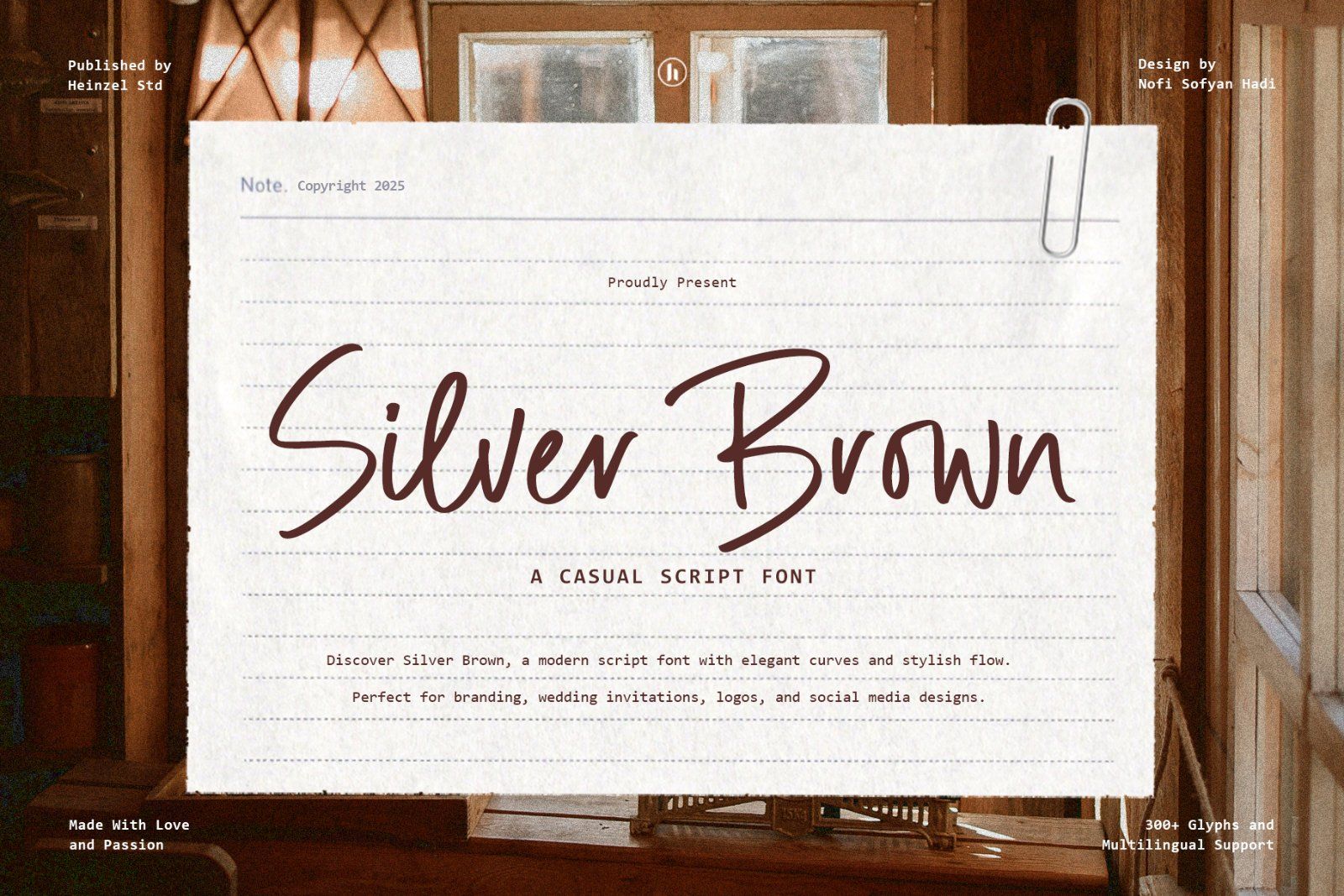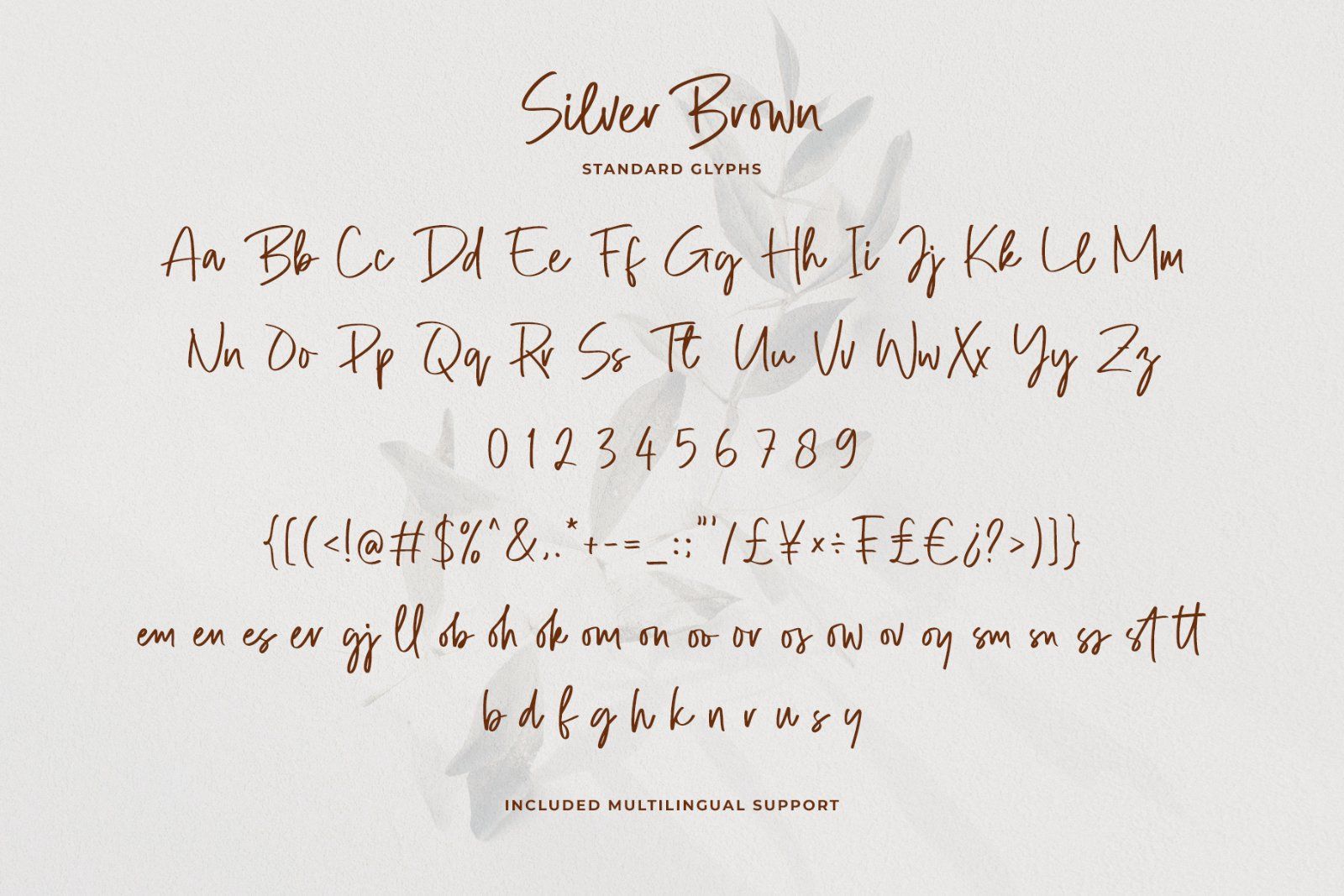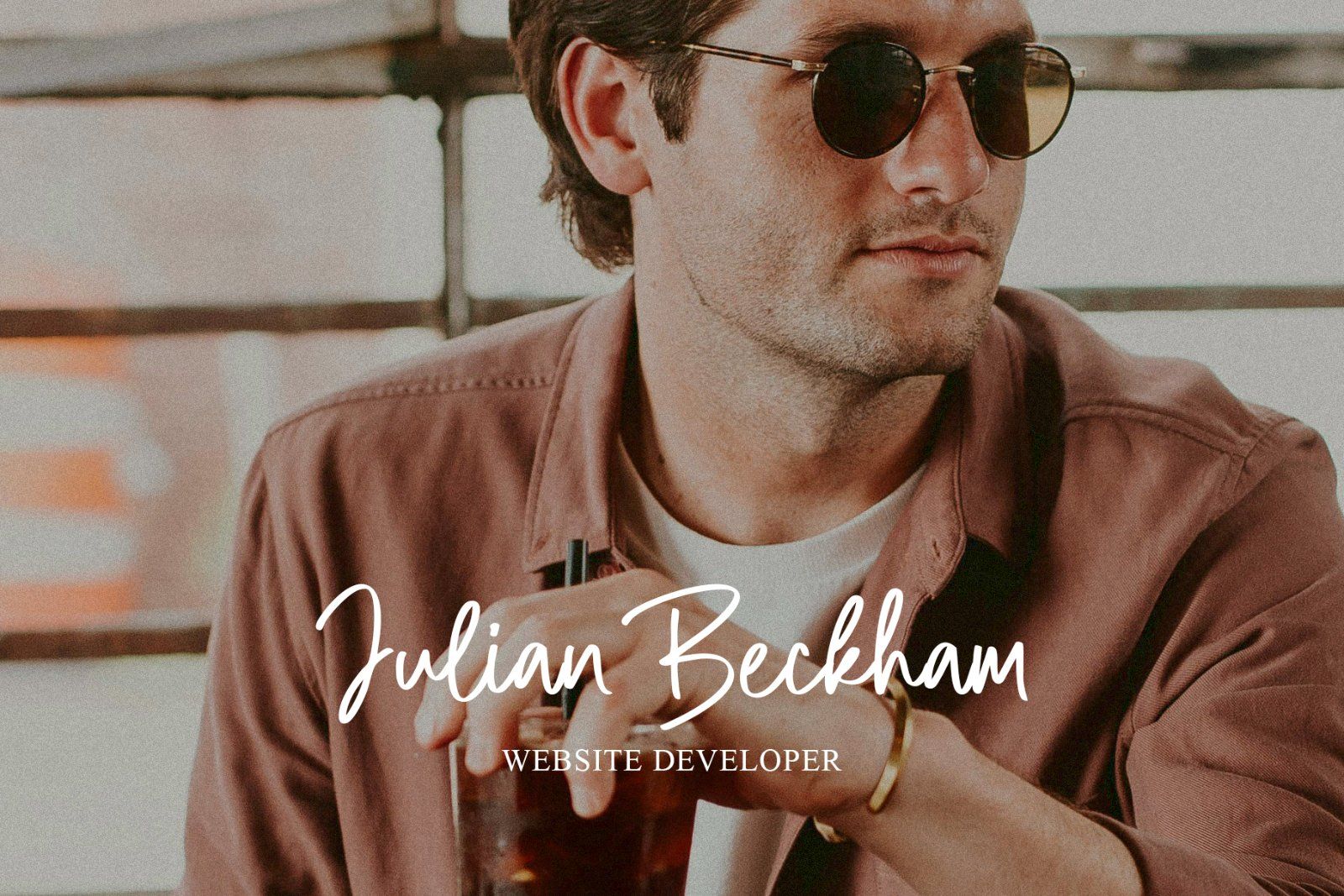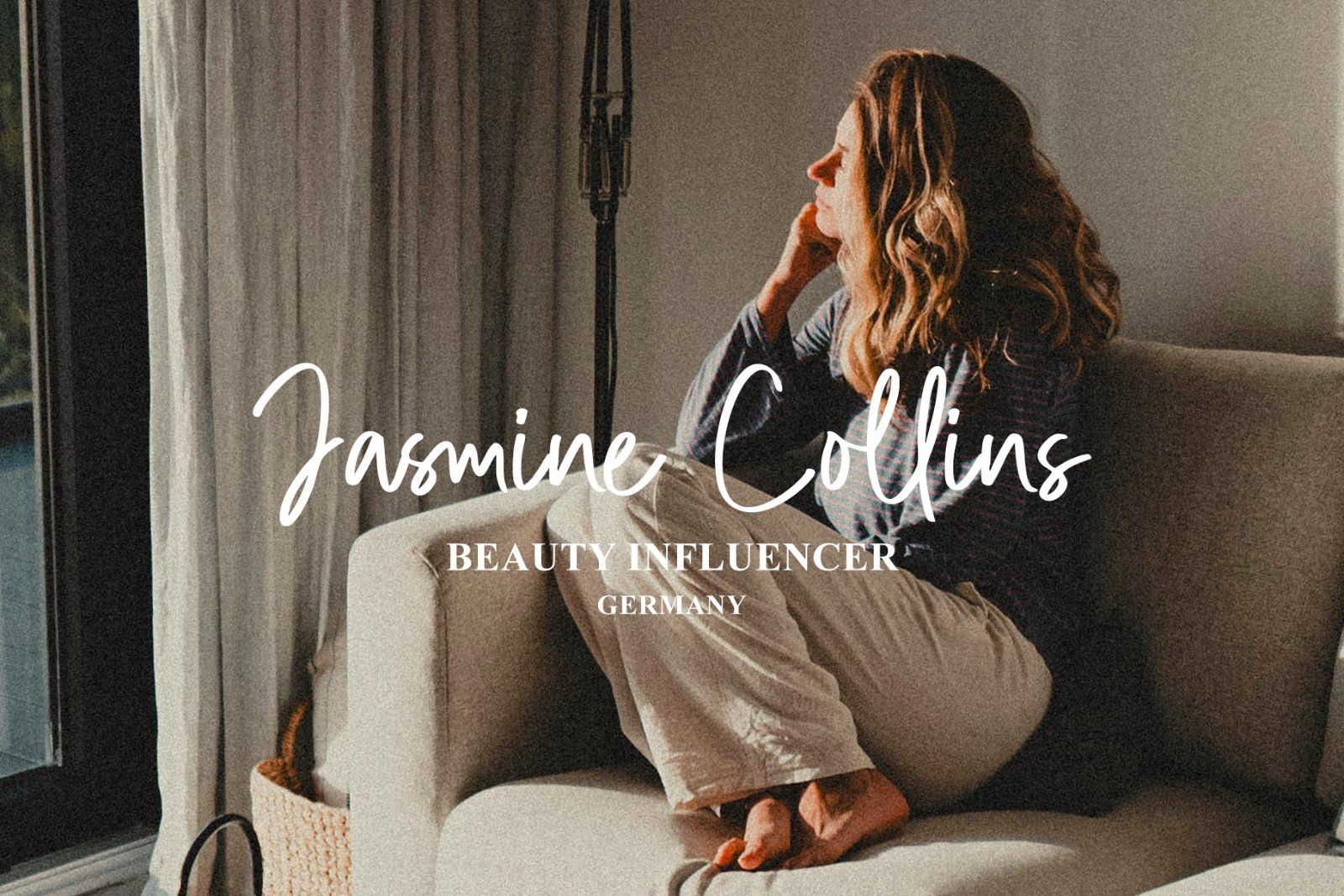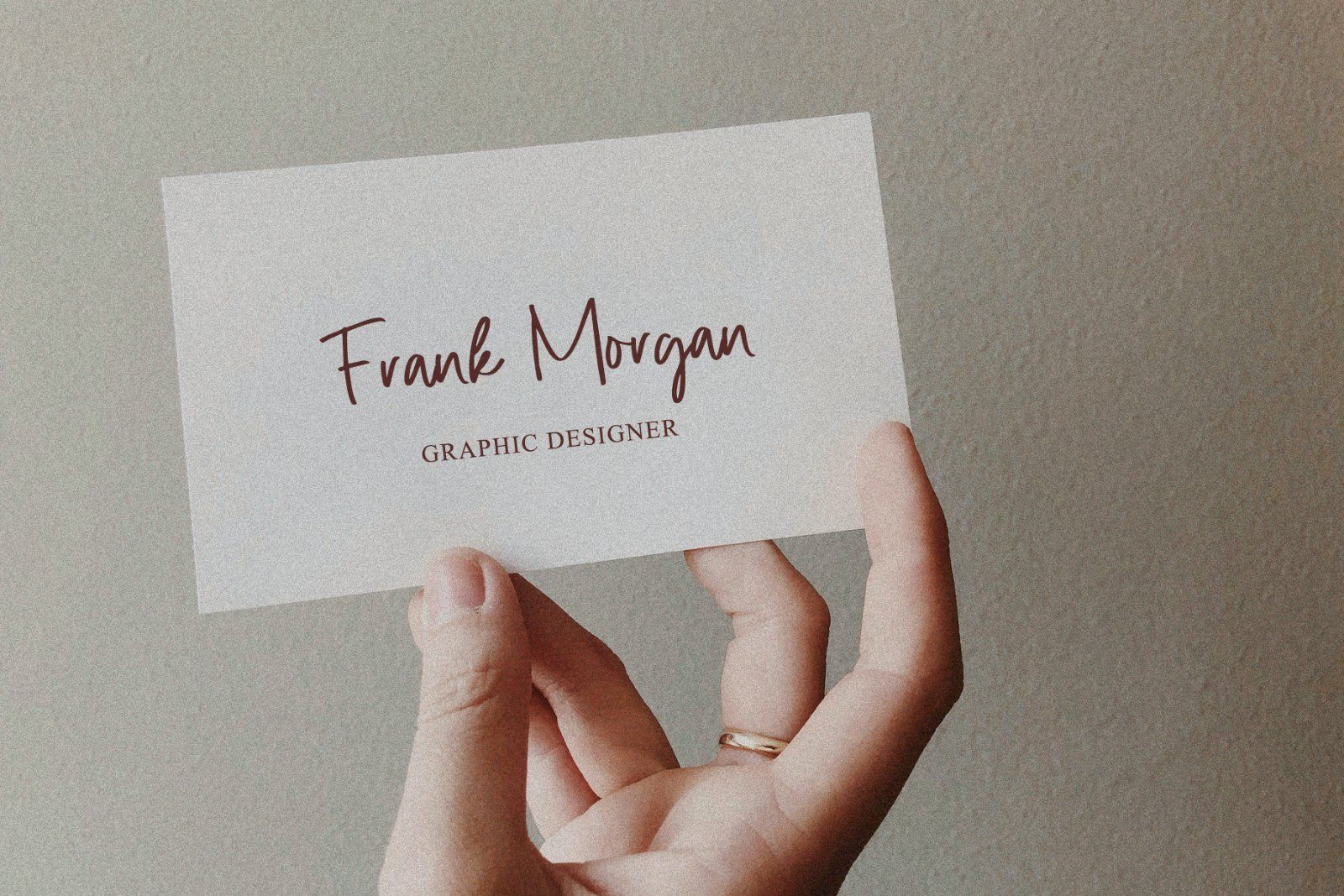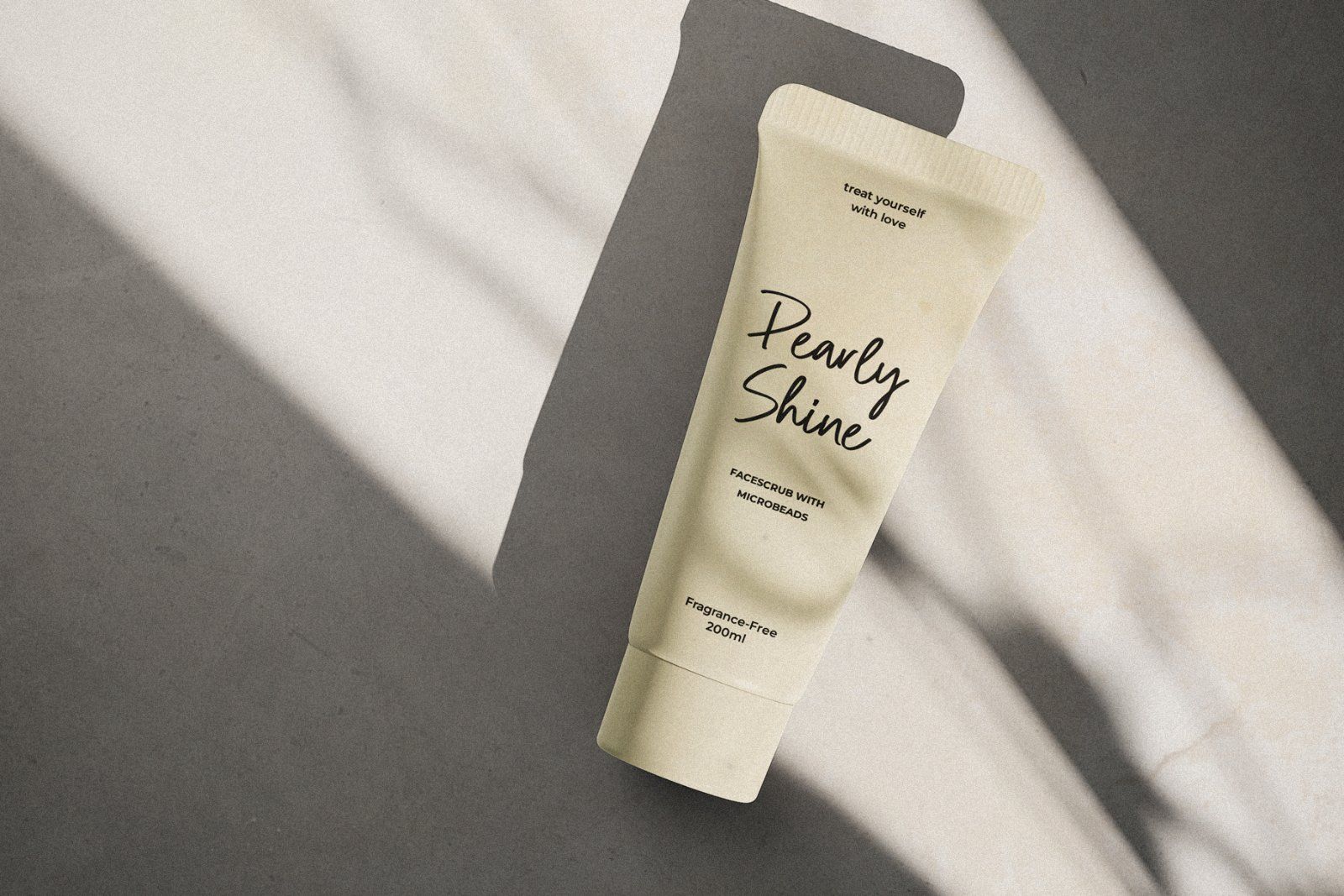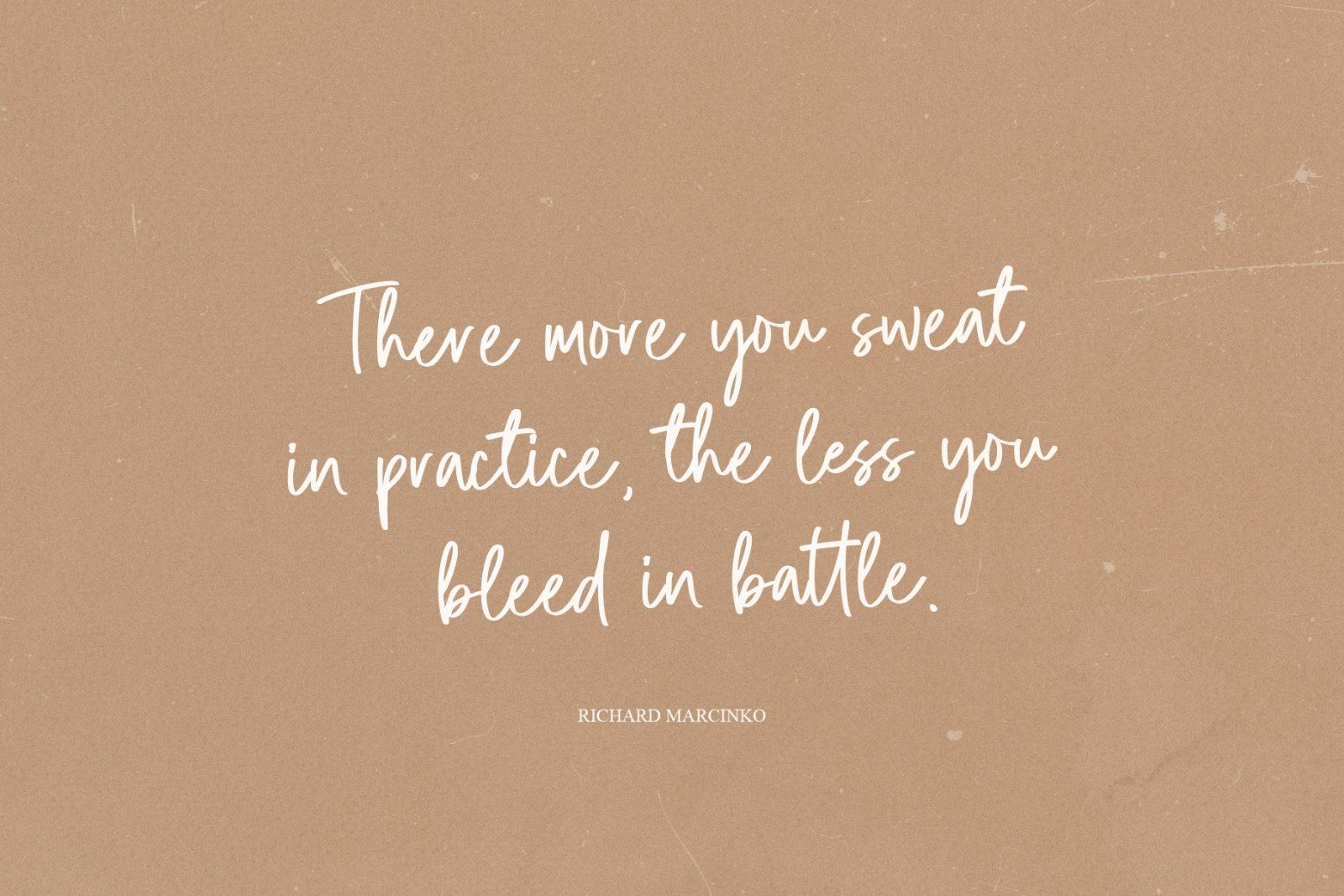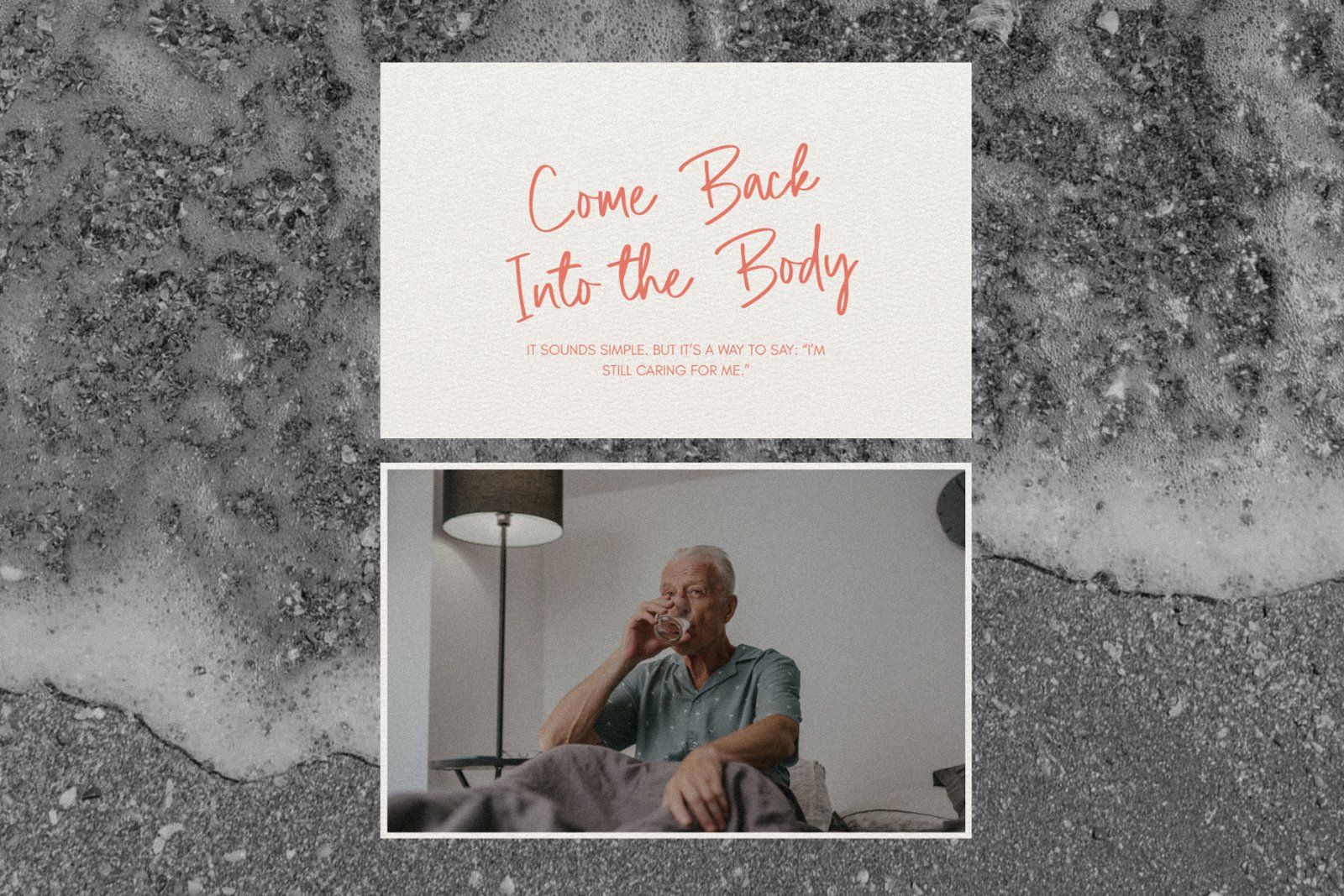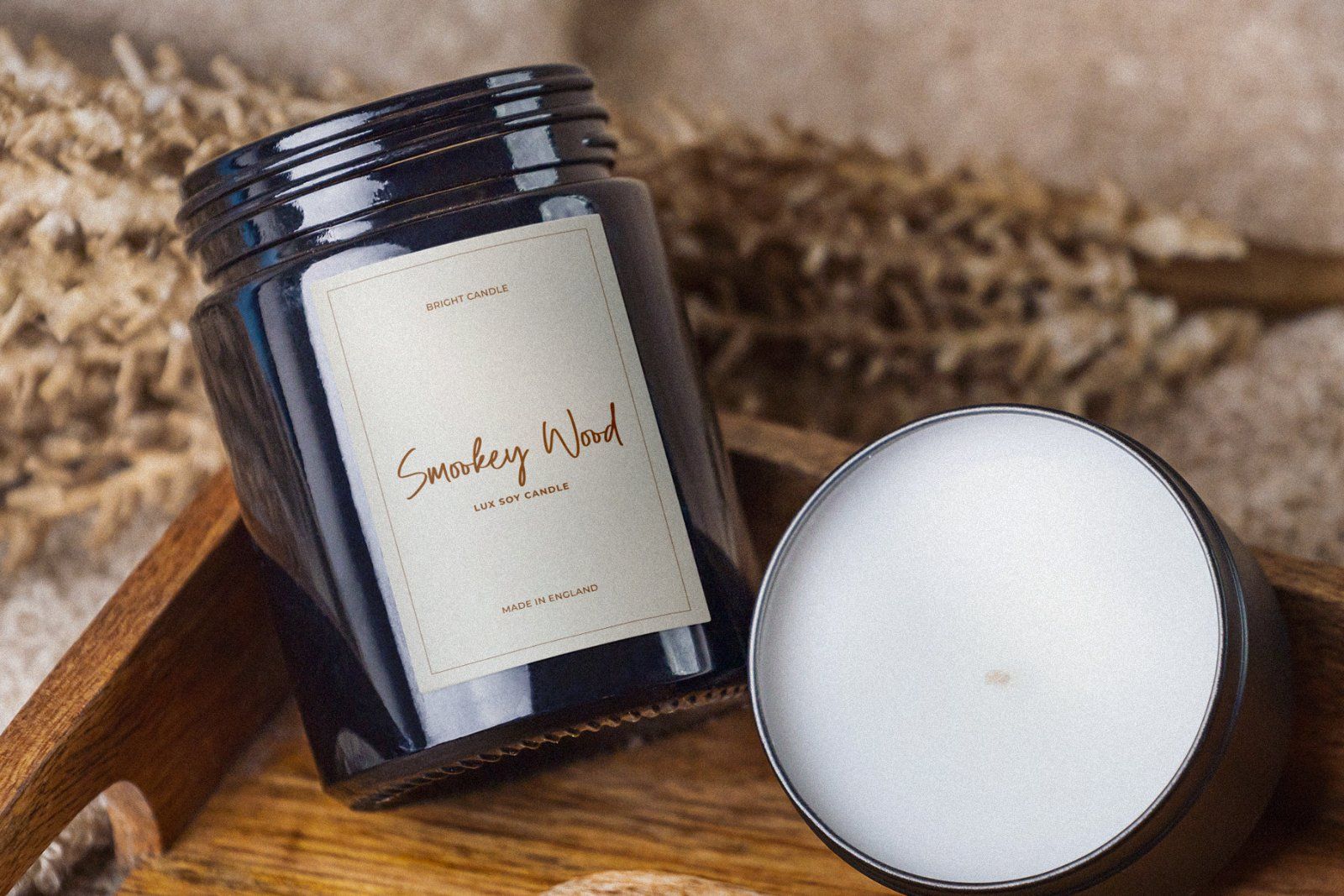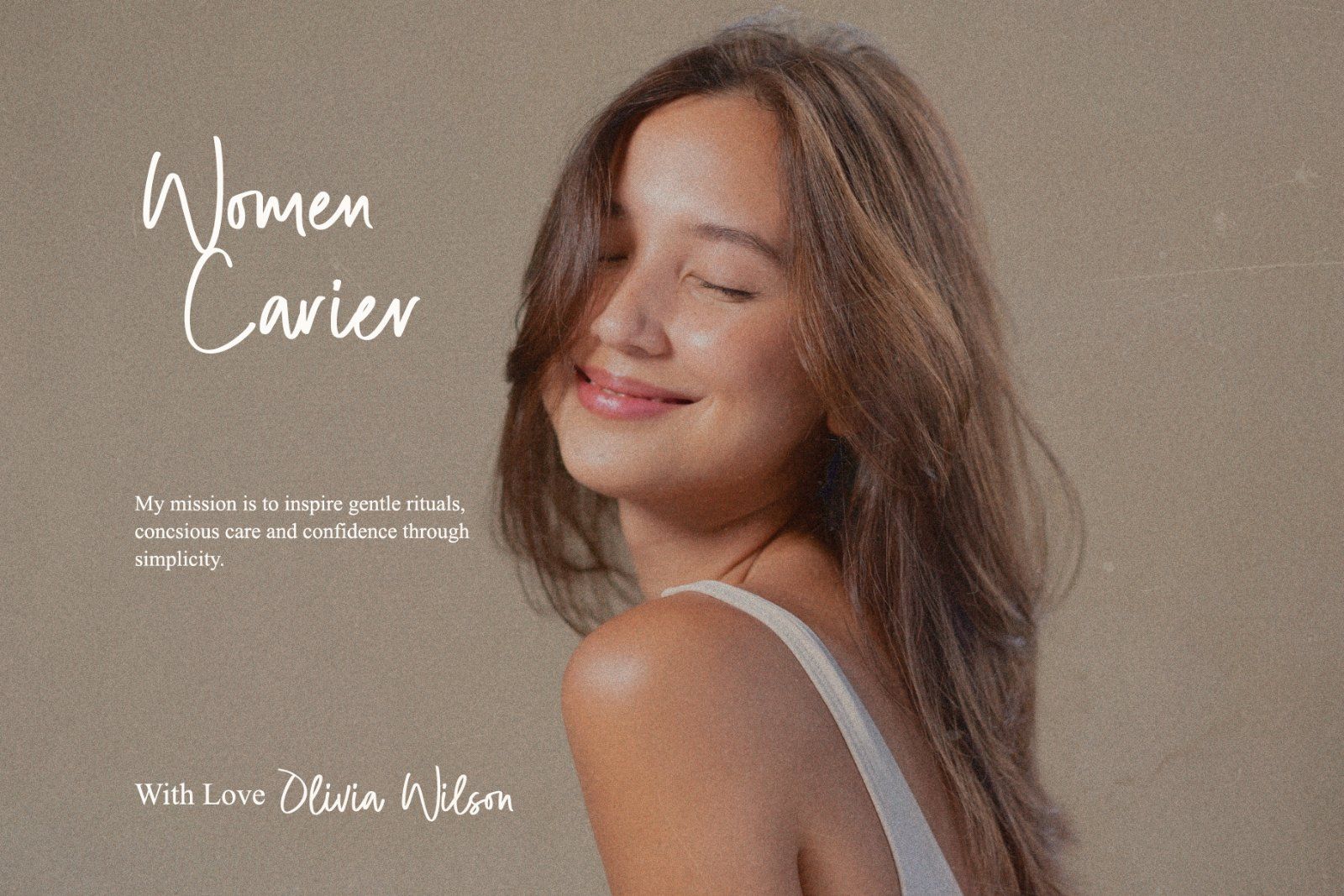
Silver Brown is a modern script font that blends natural handwriting with elegant flowing strokes, creating a timeless and sophisticated look. Designed with smooth curves, balanced letterforms, and authentic handwritten character, this font is perfect for designers who want to add warmth, personality, and premium style to their creative projects.
Whether you're creating luxury branding, wedding invitations, logos, product packaging, social media graphics, fashion editorials, or signature-style typography, Silver Brown delivers beautiful results with effortless elegance. Its clean yet expressive script makes every word feel personal while maintaining excellent readability across both print and digital designs.
Featuring over 300 glyphs with extensive multilingual support, Silver Brown is crafted to meet the needs of modern creatives around the world. The font works beautifully for branding identities, business cards, greeting cards, photography watermarks, website headers, beauty products, cafés, boutiques, cosmetics, and lifestyle brands.
If you're looking for a versatile handwritten script that combines modern aesthetics with timeless charm, Silver Brown is the perfect choice for creating memorable and professional designs.